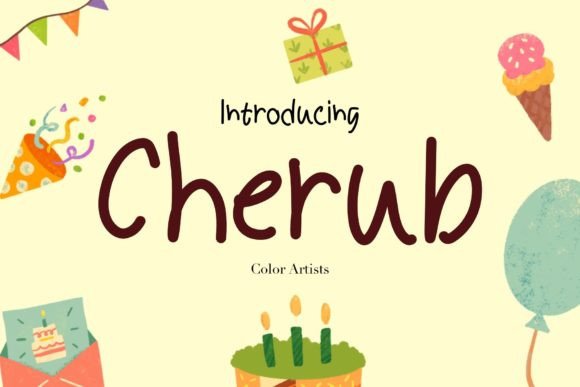
In a digital world clamoring for attention, typography has the power to elevate your creations from ordinary to extraordinary. Behold Cherub, a script font family crafted by MyFontsShop, the masters of digital artistry. Cherub is not merely a collection of letters; it is a gateway to a realm of elegance, grace, and enchantment.
Cherub's delicate letterforms dance upon the page like moonbeams, casting an air of ethereal beauty that will captivate your audience. Its soft curves and intricate details evoke a sense of serenity and purity, making it the perfect choice for projects that demand a touch of sophistication and enchantment.
With Cherub, your words will take flight, soaring above the mundane and reaching new heights of eloquence. Its graceful strokes add a touch of elegance to invitations, wedding vows, branding designs, and even personal letters. Its versatility extends to social media graphics, logos, posters, and any project that yearns for a hint of celestial charm.
Cherub's intuitive design makes it a joy to use. Each glyph has been meticulously crafted to ensure perfect harmony and balance, allowing your creations to flow effortlessly from concept to reality. Whether you're a seasoned designer or just starting your creative journey, Cherub will guide you with ease.
Embrace the allure of Cherub and let your designs blossom into masterpieces of digital art. As you navigate the vast array of fonts, remember that Cherub stands apart as a testament to the transformative power of typography. Its ethereal beauty and versatility will elevate your projects to new realms of elegance and grace.